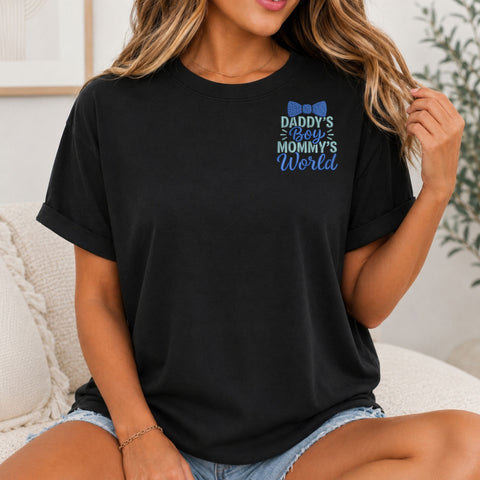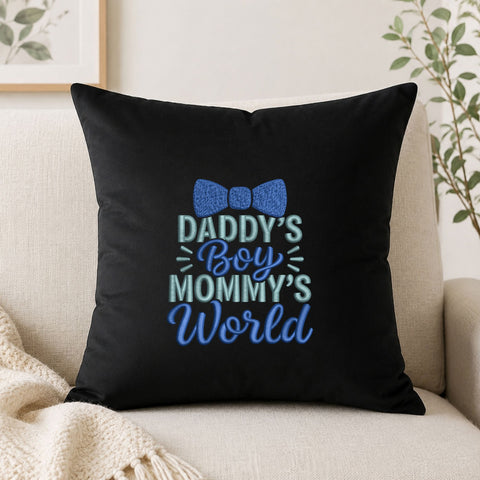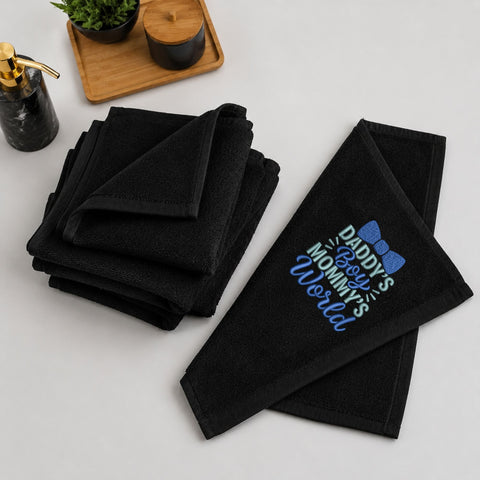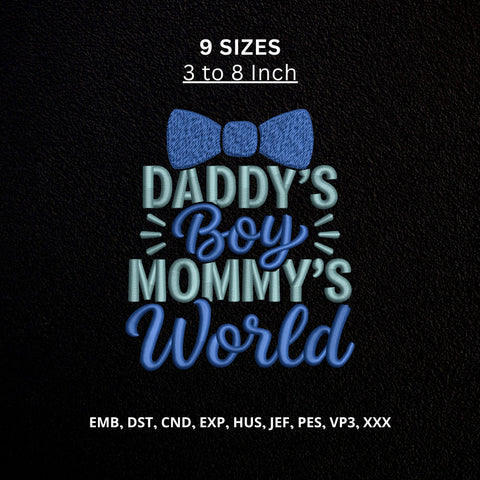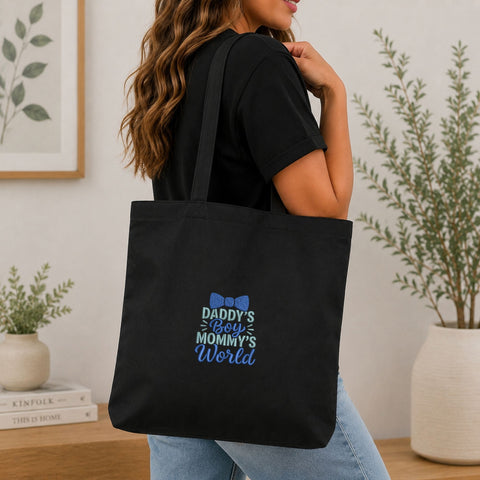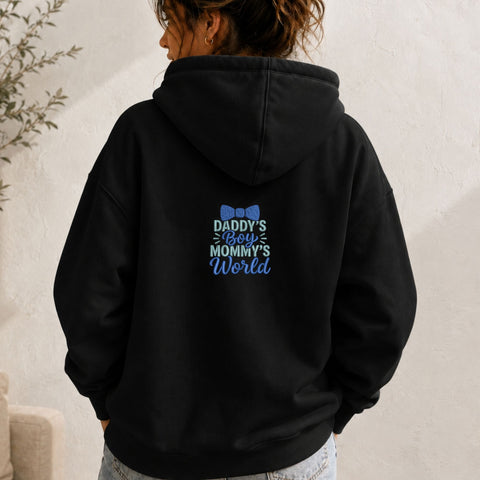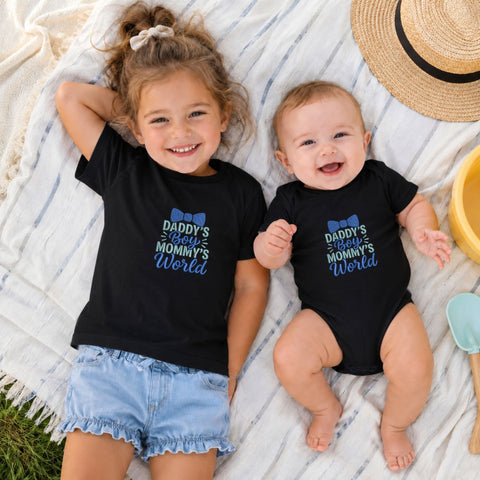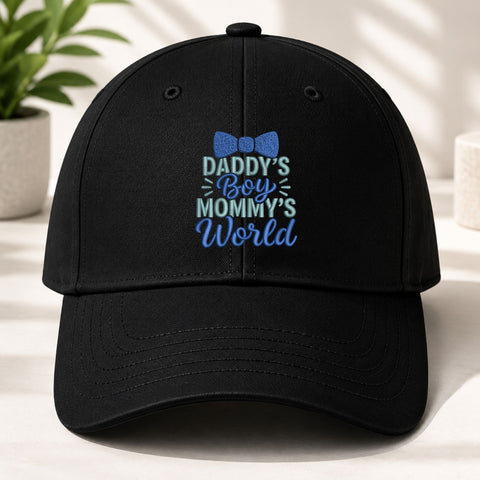
Daddy’s Boy Mommy’s World Machine Embroidery Design – Baby Boy Family Embroidery File
Celebrate a special little boy with this adorable Daddy’s Boy Mommy’s World Machine Embroidery Design. Featuring the sweet phrase “Daddy’s Boy Mommy’s World” with a classic bow tie and a combination of bold and script lettering, this design is perfect for creating cute personalized family apparel and gifts.